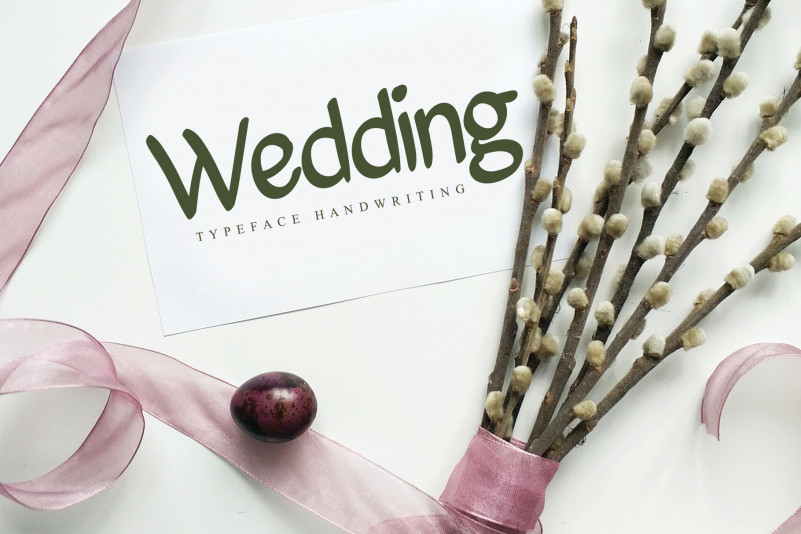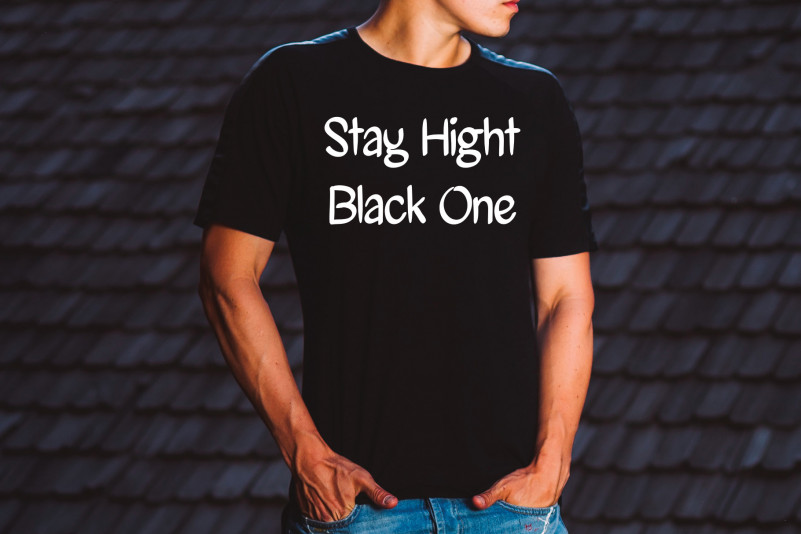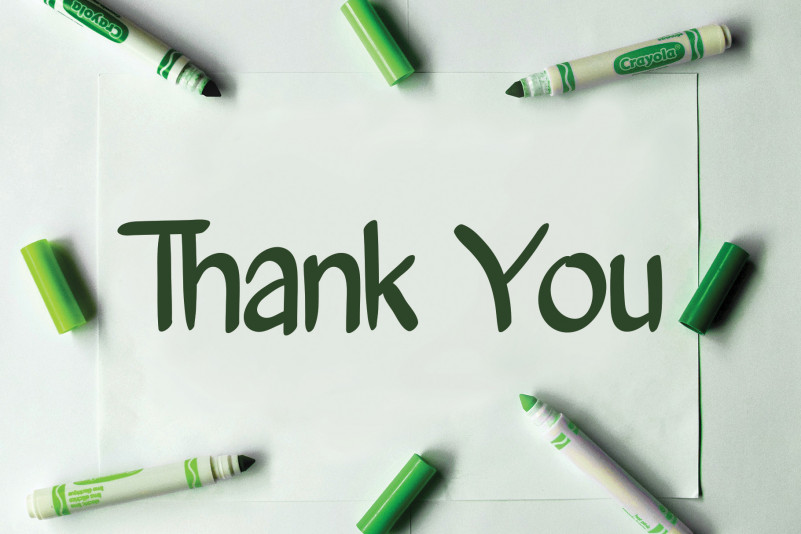
Melati Flower Brush Font
Melati Flower Brush Font is a simple and neat handwritten font. Adept and unique, this font will elevate each of your designs to the highest levels!